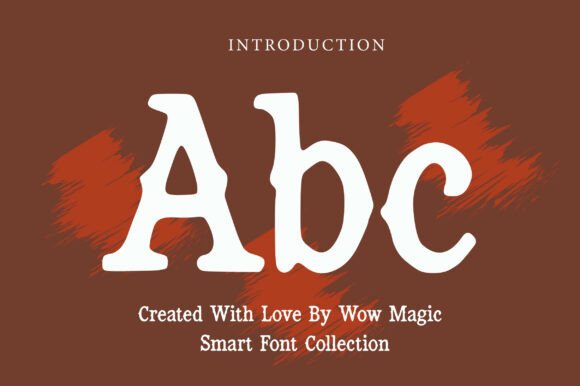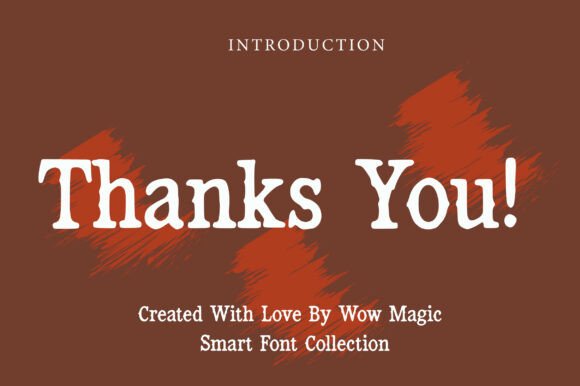
Gritty Medieval Font: Unleash the Power of Bold, Rough, and Gritty Typography
Are you looking for a font that can add a touch of medieval magic to your designs? Look no further than the Gritty Medieval font. This powerful display font is designed to capture the atmosphere of historical and fantasy typography, making it perfect for a wide range of projects, from fantasy designs and medieval themes to book covers, game titles, logos, posters, branding, and editorial projects.
The Distinctive Character of Gritty Medieval
Gritty Medieval is a bold, rough, and gritty font that is sure to make a statement in any design. Its distinctive letterforms bring a dramatic and historic feel to any project, making it ideal for designers who want to add a vintage, gothic, or fantasy-inspired style to their work. The font’s rough texture and bold lines give it a rugged, battle-hardened look that is perfect for fantasy branding, historical posters, gaming titles, and medieval-themed graphics.
Perfect for Fantasy and Medieval Designs
Whether you’re designing a fantasy novel cover, a medieval-themed video game, or a historical poster, Gritty Medieval is the perfect font for the job. Its bold and timeless character makes it ideal for projects that need a strong, attention-grabbing typography. The font’s medieval-inspired design ensures that it will fit right in with your fantasy or historical theme, adding a touch of authenticity and realism to your design.
Key Features of Gritty Medieval
• Bold and Rough Texture: Gritty Medieval has a bold and rough texture that gives it a rugged, battle-hardened look.
• Medieval-Inspired Design: The font’s medieval-inspired design makes it perfect for fantasy and historical themes.
• Distinctive Letterforms: The font’s distinctive letterforms bring a dramatic and historic feel to any design.
• High-Quality Design: Gritty Medieval is designed to high standards, ensuring that it will look great in any design.
What You Can Use Gritty Medieval For
Gritty Medieval is a versatile font that can be used for a wide range of projects, including:
• Fantasy Designs: Use Gritty Medieval to add a touch of magic to your fantasy designs, such as book covers, posters, and logos.
• Medieval Themes: The font’s medieval-inspired design makes it perfect for medieval-themed projects, such as historical posters, game titles, and branding.
• Book Covers: Gritty Medieval is a great choice for book covers, particularly for fantasy and historical fiction novels.
• Game Titles: The font’s bold and rugged texture makes it perfect for game titles, particularly for medieval-themed games.
• Logos and Branding: Use Gritty Medieval to create a bold and memorable logo or brand identity.
• Posters and Editorial Projects: The font’s distinctive character makes it perfect for posters and editorial projects, such as magazine headlines and article titles.
Why Choose Gritty Medieval?
There are many fonts to choose from, but Gritty Medieval stands out from the crowd. Here are just a few reasons why:
• Unique Character: Gritty Medieval has a unique and distinctive character that sets it apart from other fonts.
• High-Quality Design: The font is designed to high standards, ensuring that it will look great in any design.
• Versatility: Gritty Medieval can be used for a wide range of projects, from fantasy designs to medieval themes.
If you’re looking for a font that can add a touch of medieval magic to your designs, look no further than Gritty Medieval. This powerful display font is perfect for fantasy designs, medieval themes, book covers, game titles, logos, posters, branding, and editorial projects. Its distinctive character and bold, rough texture make it ideal for projects that need a vintage, gothic, or fantasy-inspired style. So why wait? Download Gritty Medieval today and unleash the power of bold, rough, and gritty typography in your designs.